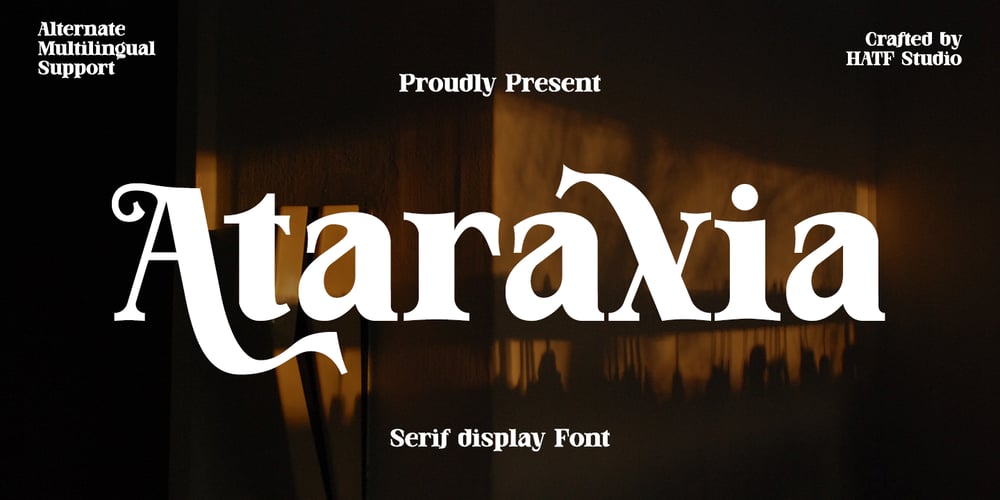
Ataraxia Font Family was designed by Asep Rendi and published by Hatftype. Ataraxia contains 1 styles and family package options. Ataraxia is a modern serif font that is a harmonious blend of classic serif elegance with contemporary design elements that produces an elegant and understated impression. With proportional and regular letter shapes, as well as finely tailored serif details, this font displays a classy impression but still maintains a contemporary feel. Bold lines and clear shapes provide visual clarity, while balanced proportions add overall elegance. Modern serifs are often applied in a variety of design contexts from magazine layouts to brand identities, conveying a strong character while still adapting to a modern aesthetic.